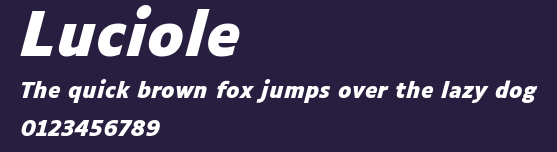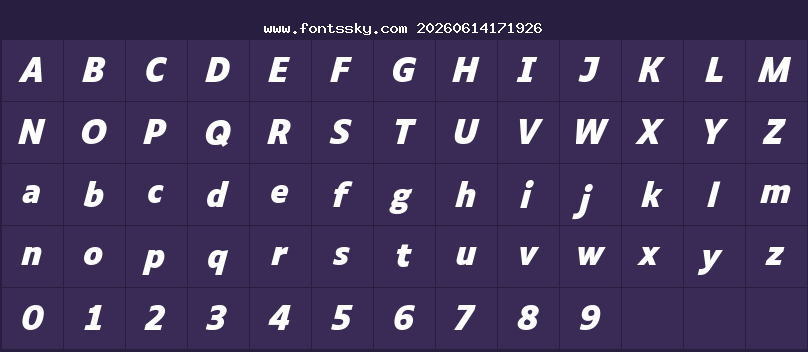
• Font Name: Luciole
• Full Font Name: Luciole Bold Italic
• Designer: Laurent Bourcellier
About Luciole.ttf
Luciole.ttf is a modern, elegant sans-serif font designed for ultimate readability and visual harmony. Perfect for branding, headlines, web design, and print materials.